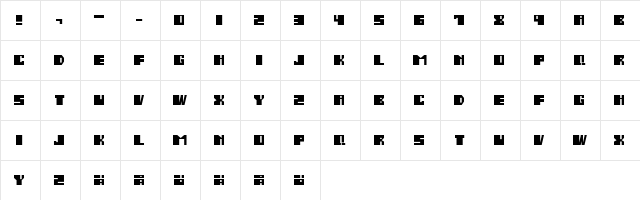
Salmiak Regular Regular
Design Context for Salmiak Regular Typeface
Salmiak Regular is a composed and adaptable typeface that performs quietly and consistently across a wide range of design contexts.